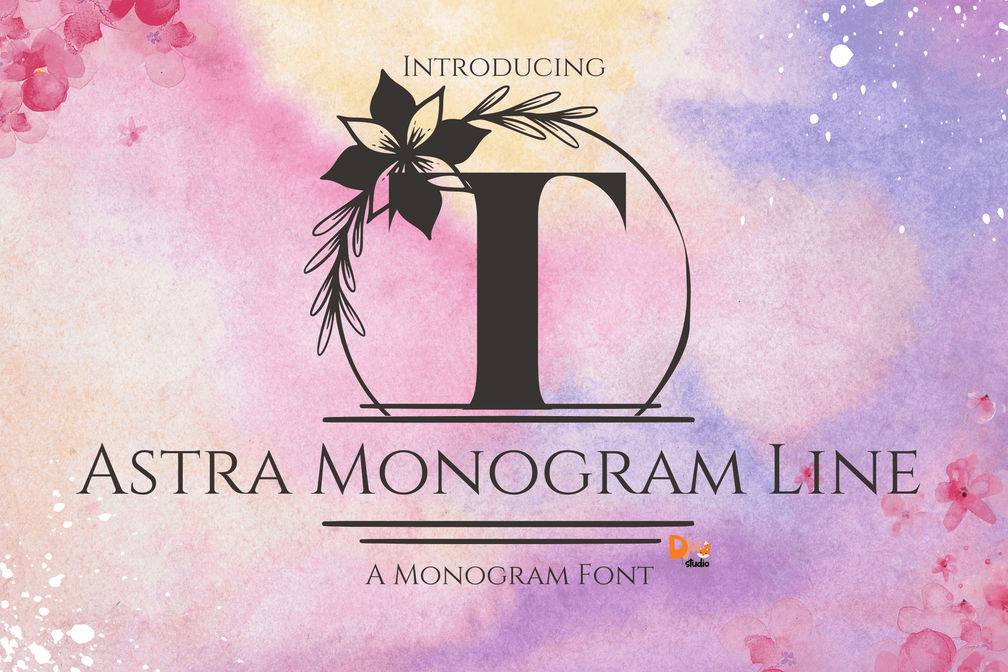
Astra Line Monogram
Astra Line Monogram – Elegant & Minimalist Monogram Font
Astra Line Monogram is a refined and stylish monogram font featuring clean, linear letterforms for a sophisticated and modern aesthetic. This font is perfect for luxury branding, wedding invitations, personalized stationery, boutique packaging, and artistic monogram designs. Its sleek, minimalist style adds a timeless and elegant touch to any project.
• Sleek Linear Monogram Style: Designed with fine lines for a sophisticated and modern look.
• Perfect for Luxury & Elegant Projects: Ideal for weddings, branding, invitations, and personalized designs.
• Minimalist & Timeless Aesthetic: Combines elegance with contemporary simplicity.